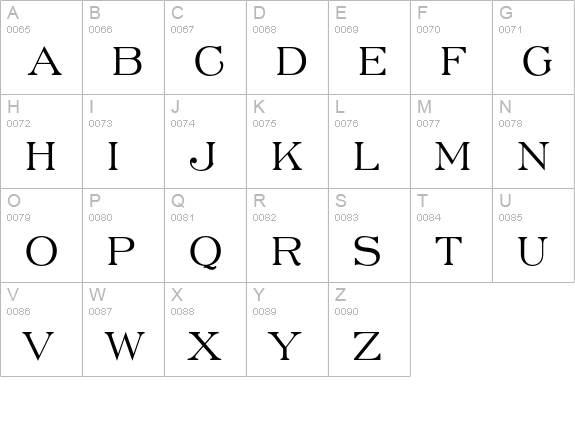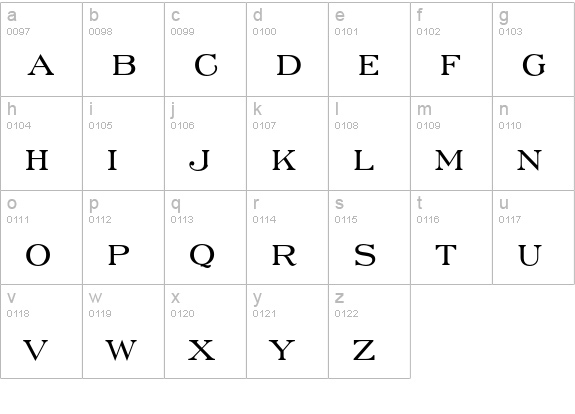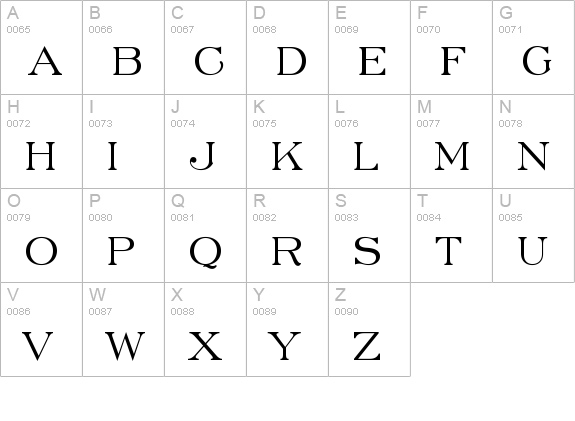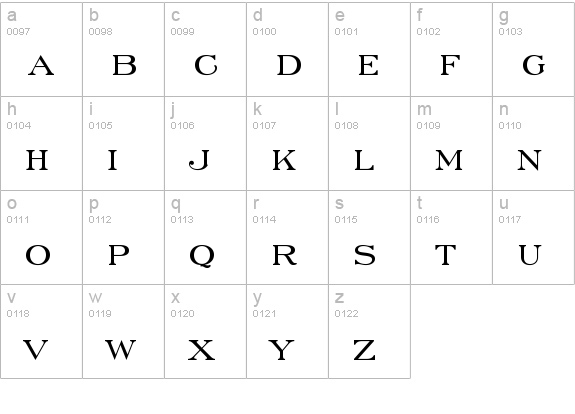
Engravers' Roman is a classic and elegant font that exudes sophistication and timelessness. With its clean lines and sharp serifs, this typeface is perfect for adding a touch of refinement to any design project. Whether you're working on invitations, branding materials, or editorial layouts, Engravers' Roman will elevate your work with its timeless appeal. What's even better is that Engravers' Roman is available for free at FontsMarket.com! Simply download this exquisite font to add a touch of class to your designs without breaking the bank. Don't miss out on the opportunity to enhance your projects with this beautifully crafted typeface that will stand the test of time. Download Engravers' Roman today and see the difference it can make in your design work.